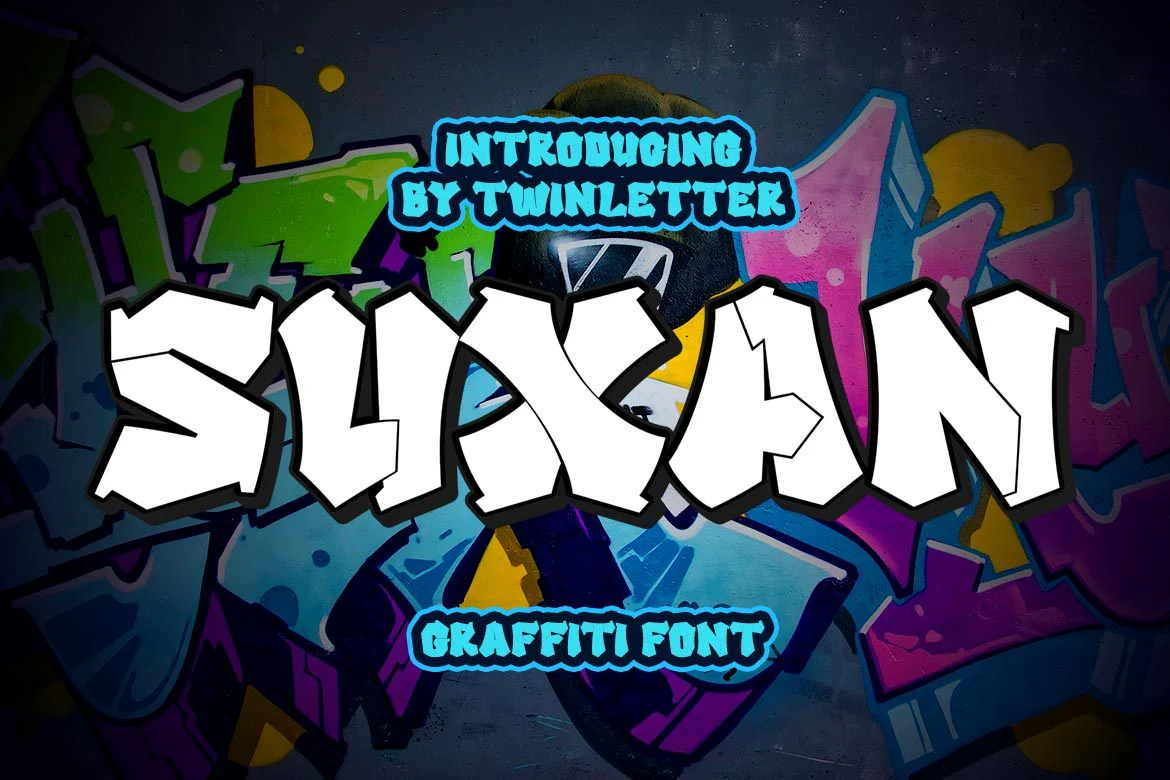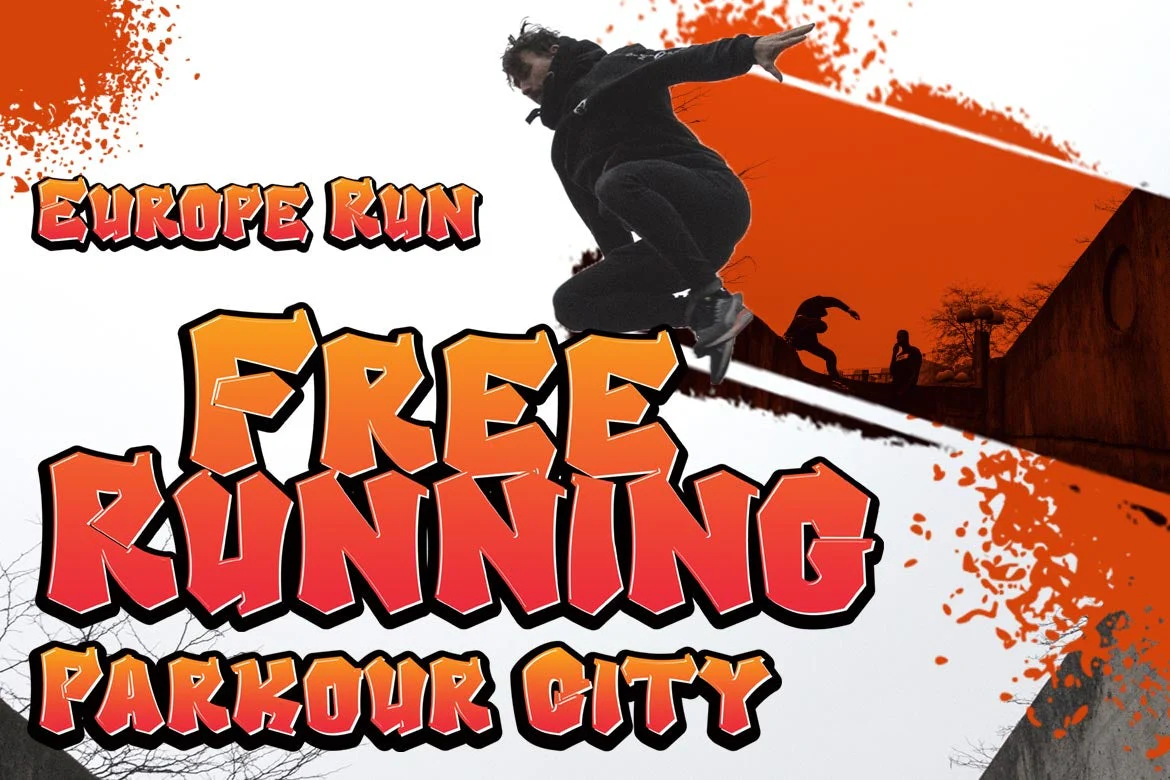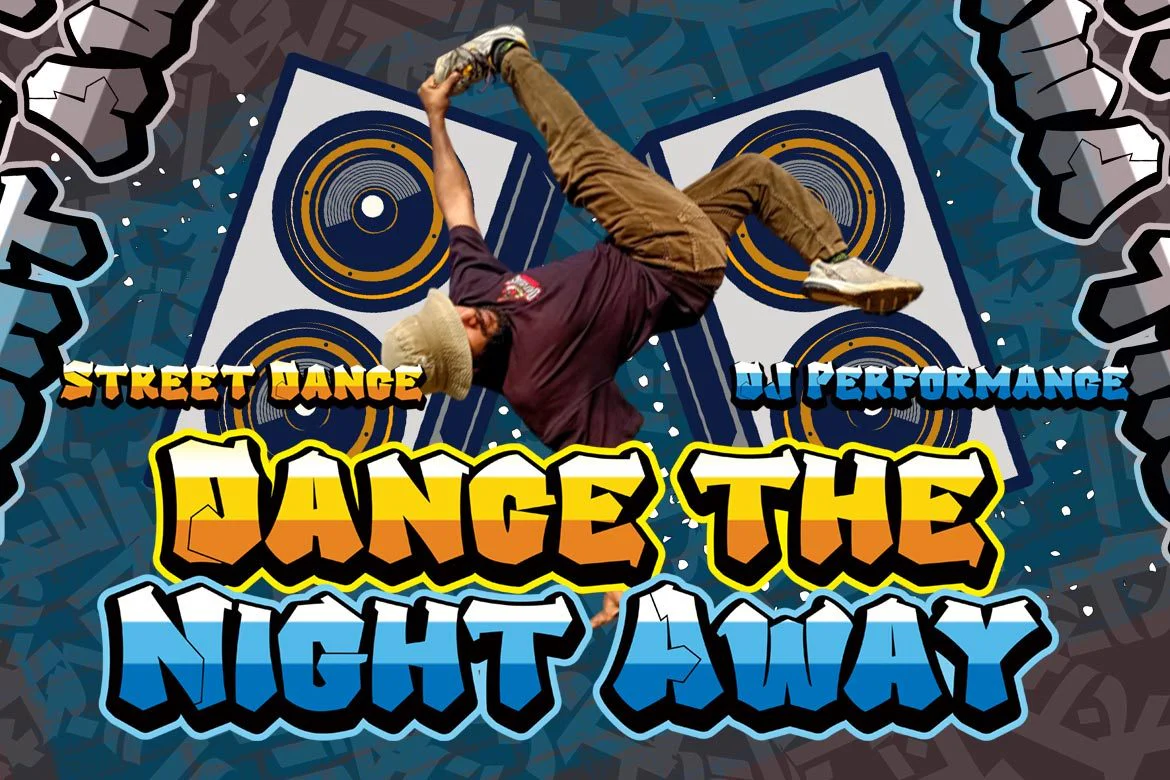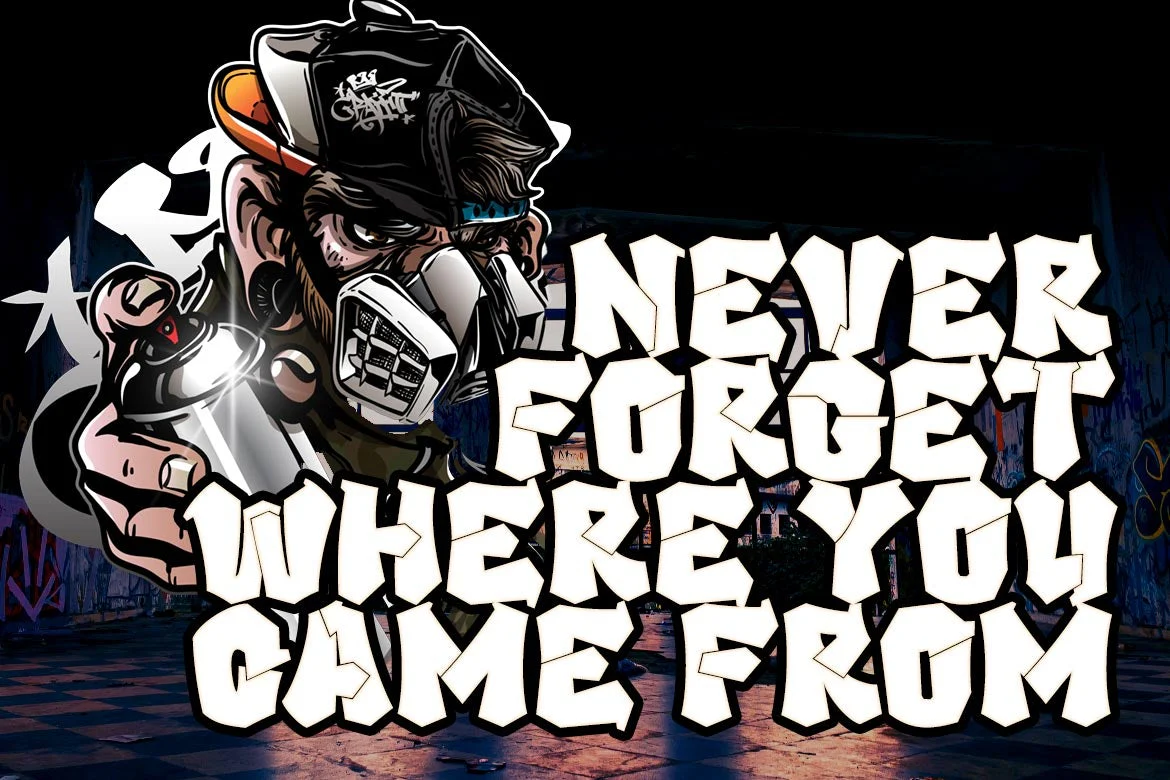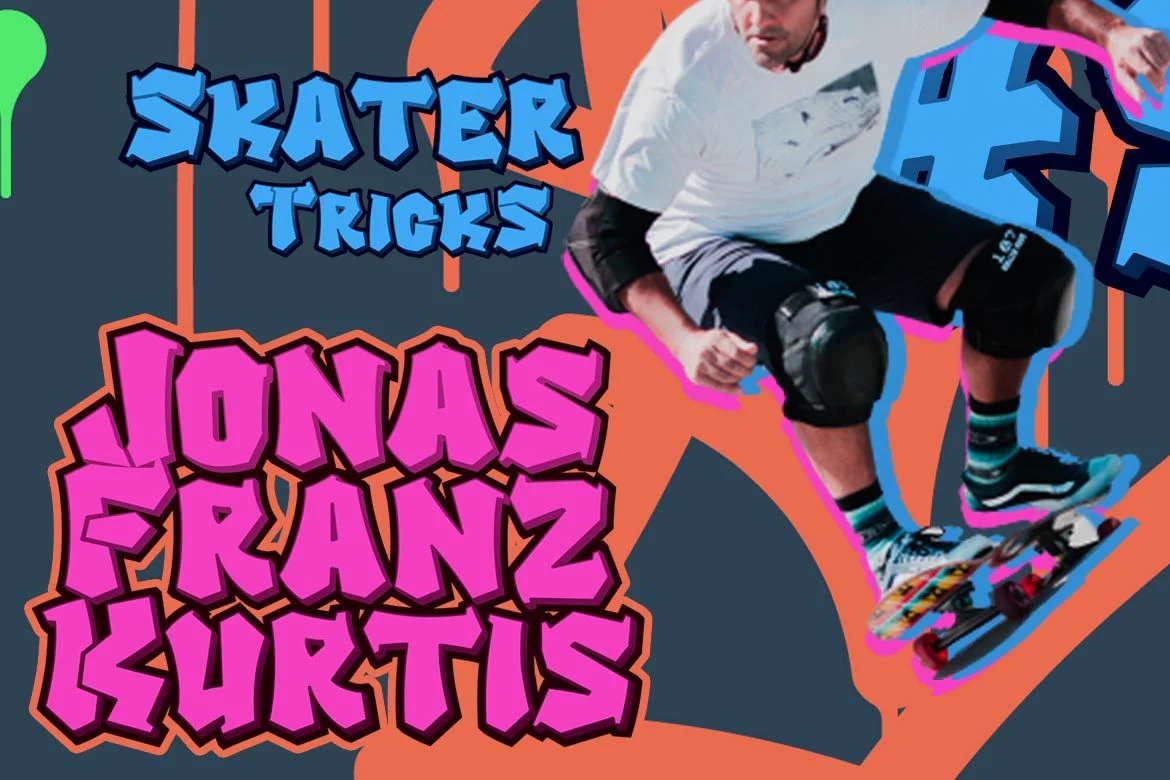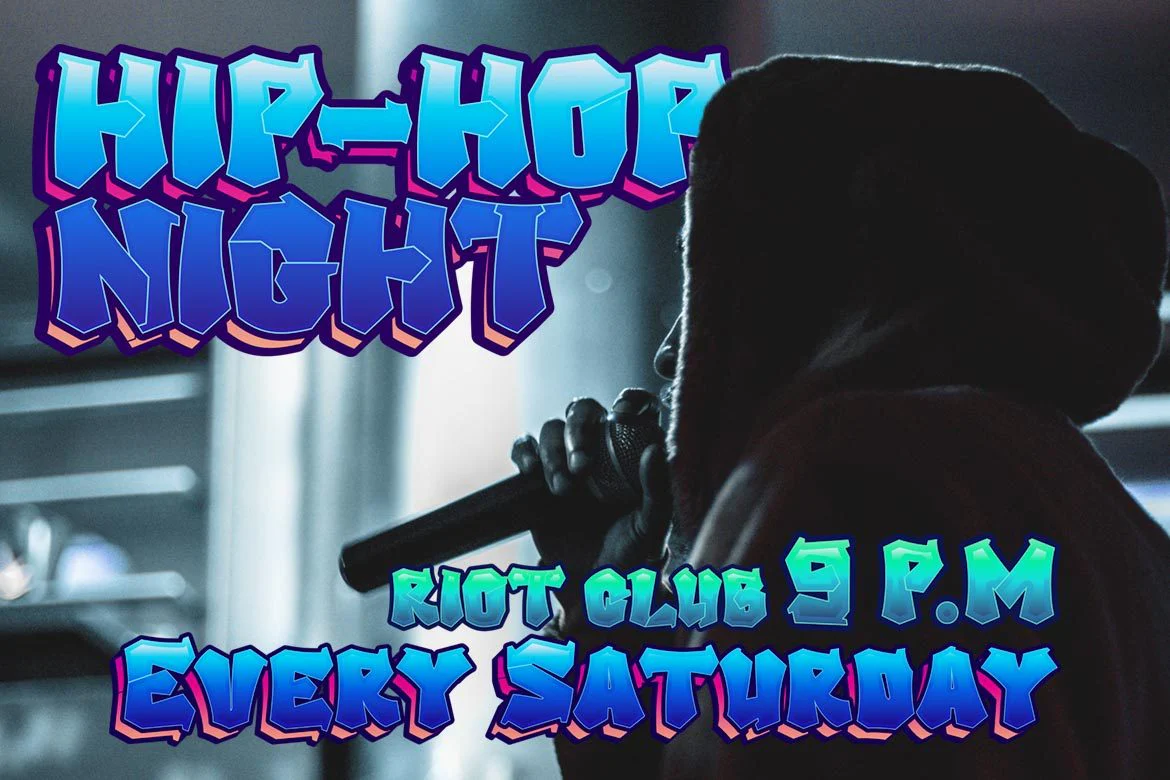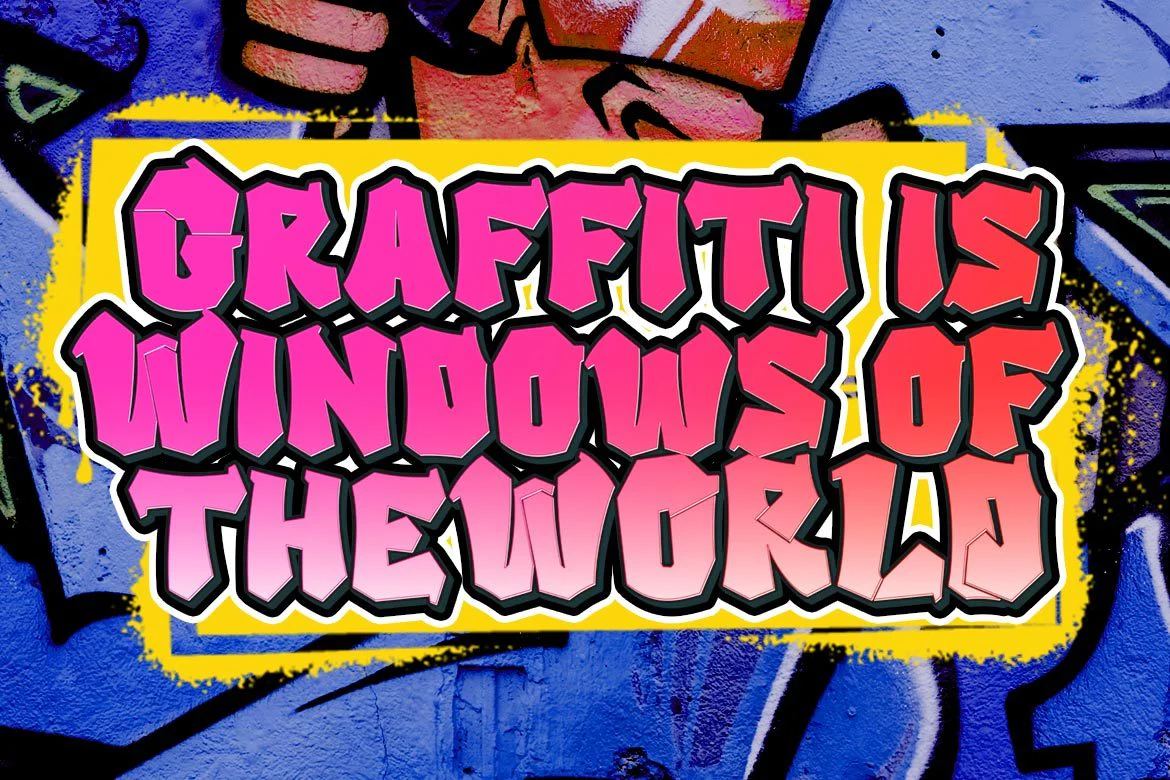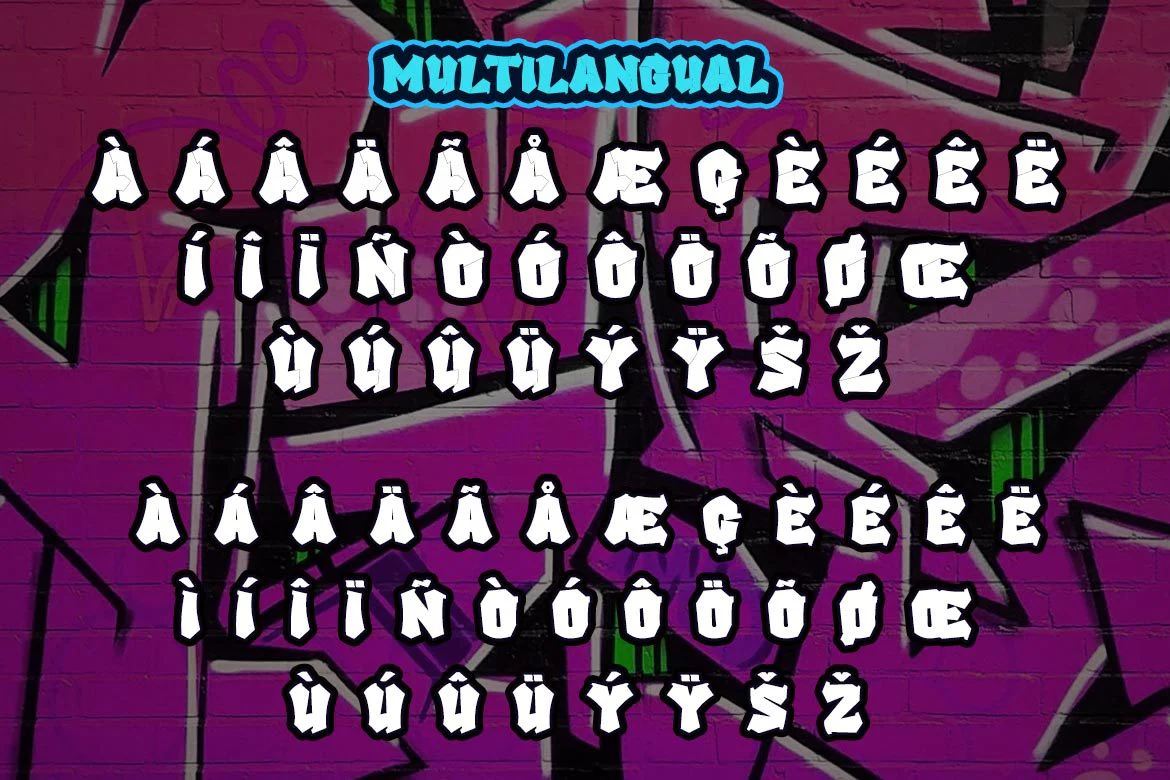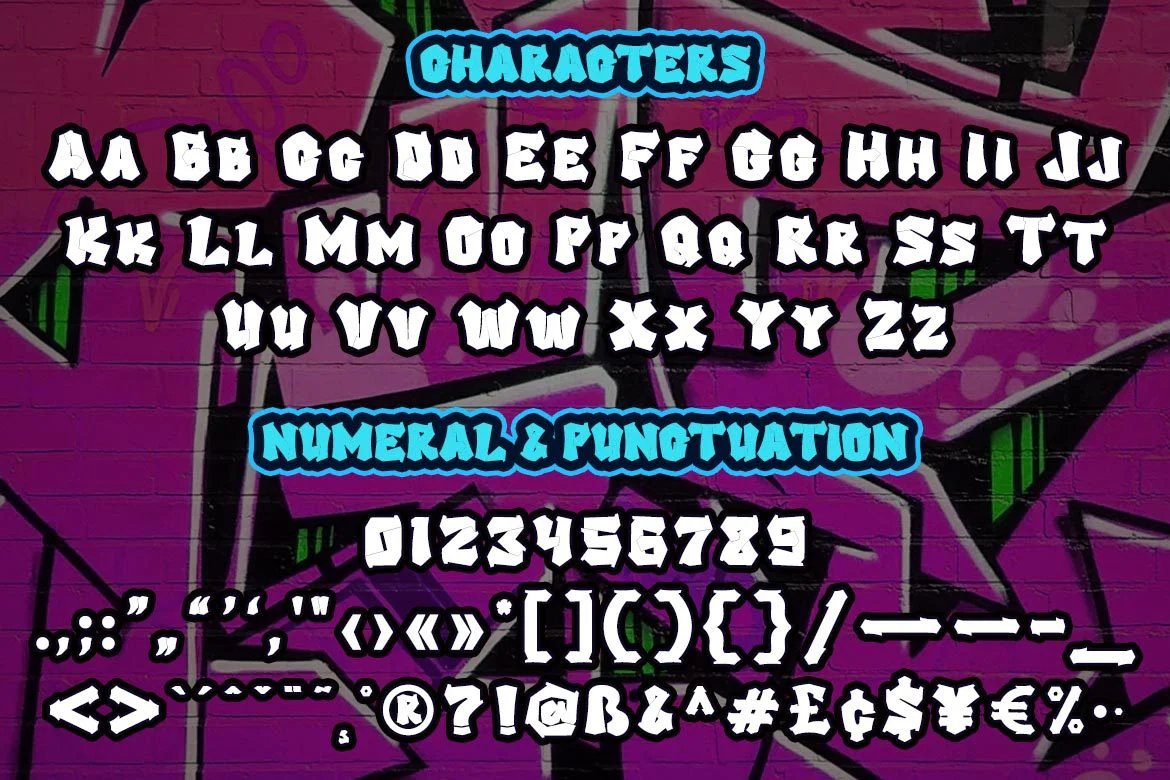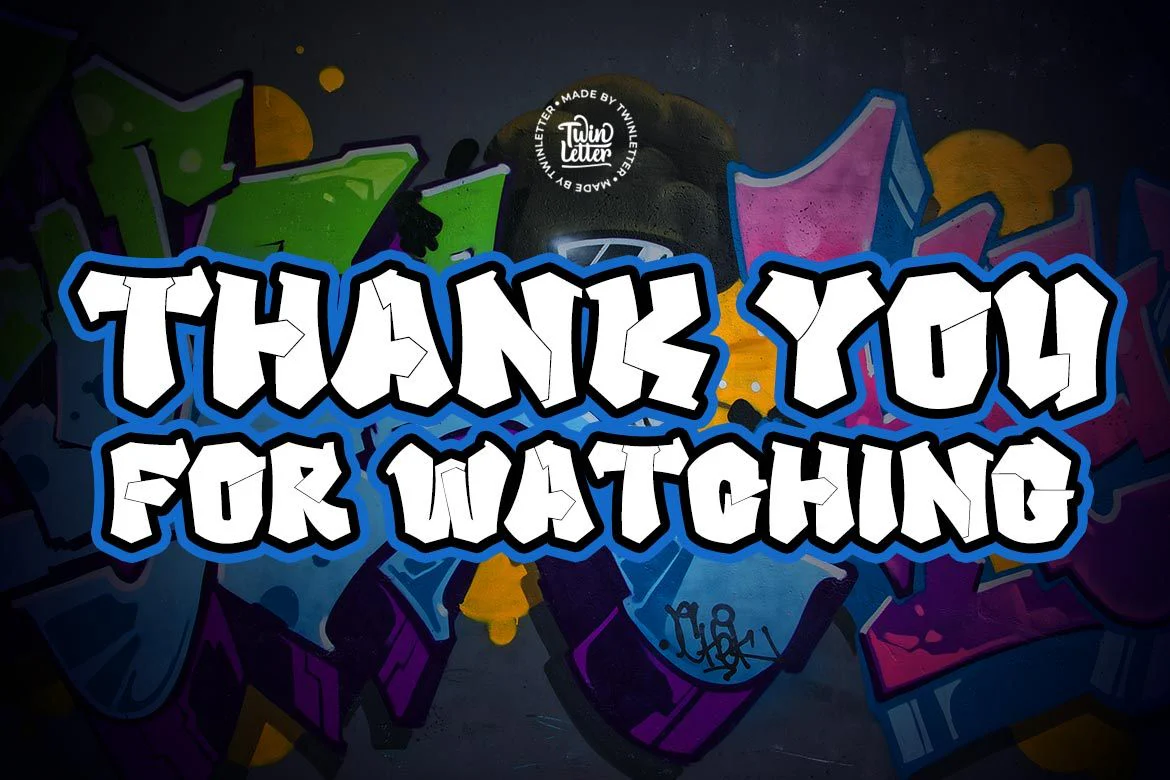
SUXAN - Display Graffiti Style Font
Suxan is a graffiti typeface with strong, forceful, modern qualities and each letter design is absolutely unique.
Not only is the shape of the letters good in this font, but the harmony and accuracy with which it is used will make your project legendary and sumptuous, so utilize it now.
This graffiti font is great for product logos, poster titles, headlines, packaging, film titles, logotypes, gorgeous writing, and trendy graffiti designs, among other things.
Of course, if you utilize this font in your numerous creative projects, they will be perfect and outstanding.
Use this typeface right away for your one-of-a-kind and remarkable projects.
Suxan is a graffiti typeface with strong, forceful, modern qualities and each letter design is absolutely unique.
Not only is the shape of the letters good in this font, but the harmony and accuracy with which it is used will make your project legendary and sumptuous, so utilize it now.
This graffiti font is great for product logos, poster titles, headlines, packaging, film titles, logotypes, gorgeous writing, and trendy graffiti designs, among other things.
Of course, if you utilize this font in your numerous creative projects, they will be perfect and outstanding.
Use this typeface right away for your one-of-a-kind and remarkable projects.